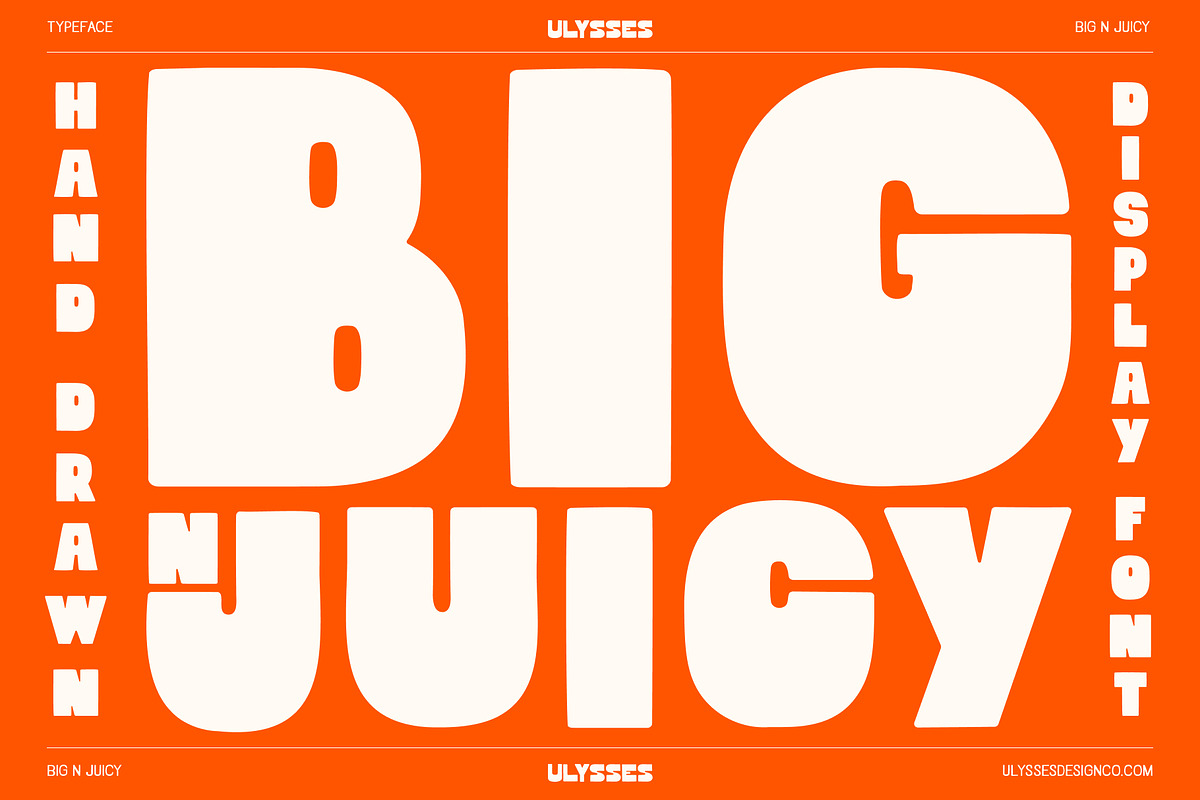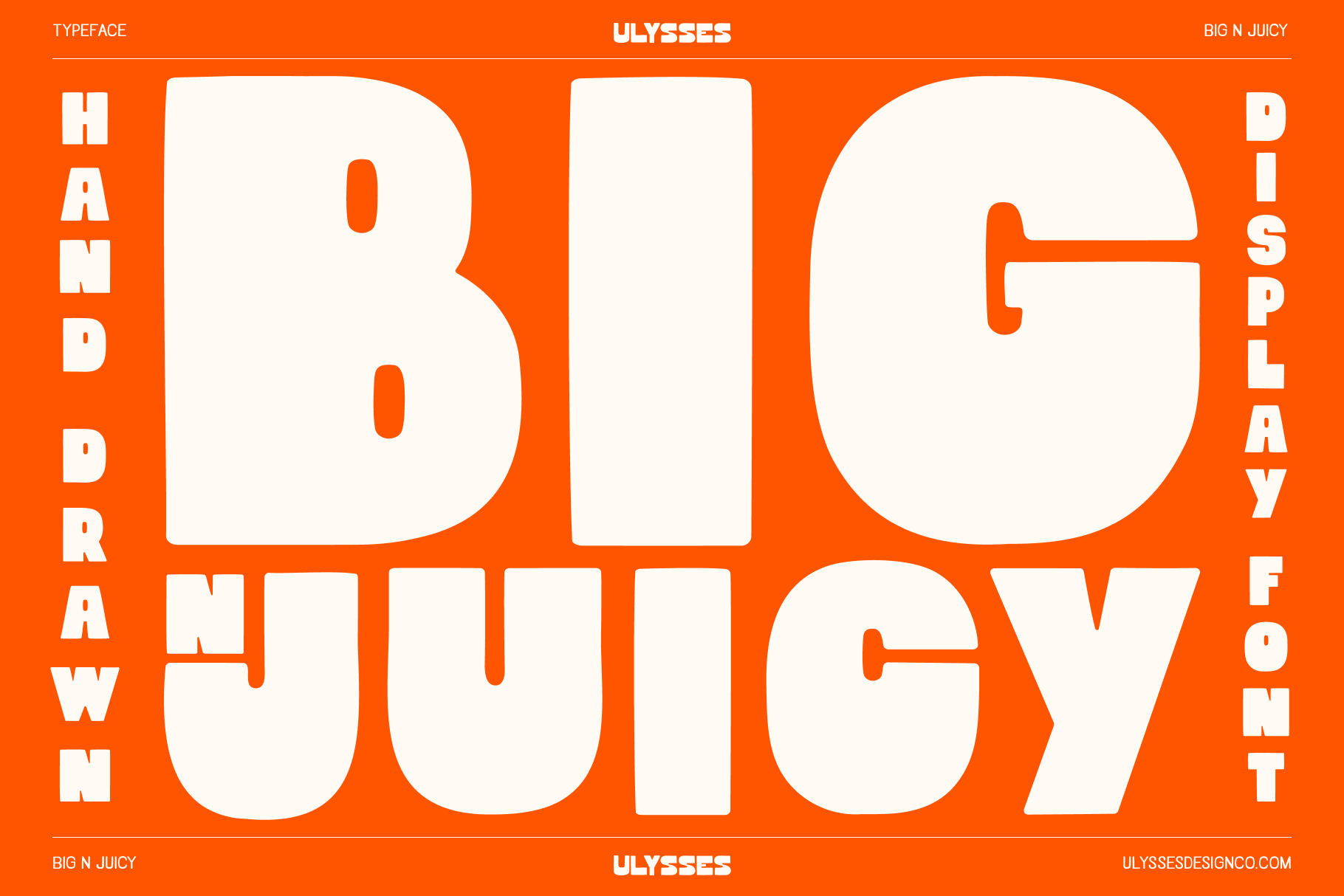
Big N' Juicy Hand Drawn Font
Meet Big N’ Juicy, the latest hand-drawn typeface from Ulysses Design Co.
Inspired by retro snack packs and vintage sign painting, it’s bold, playful, and impossible to ignore. With chunky strokes and loud personality, Big N’ Juicy brings instant impact to packaging, branding, merch, and more.
Crafted with care at Ulysses Design Co., this font is all about impact, character, and that irresistible, larger-than-life charm.